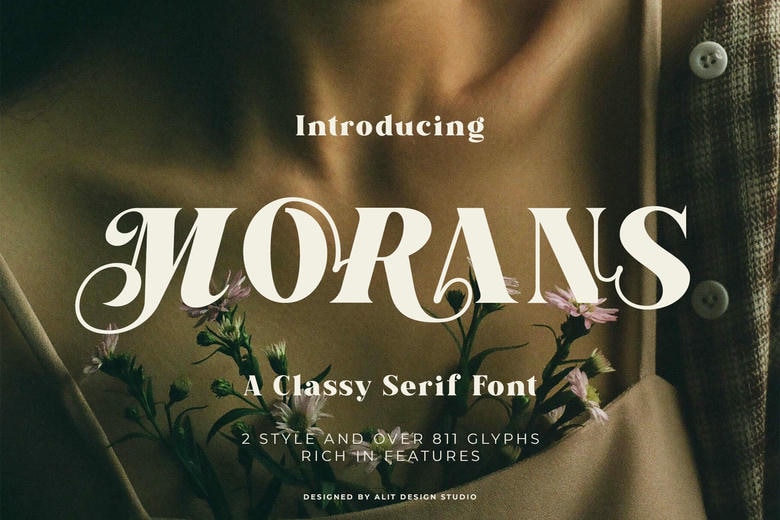
Morans Font
Morans is a serif typeface created by Alit Design Studio and its style reflects elegance, fineness and professionalism. That makes it ideal for designers who would wish to express dominance and sophistication in their projects.
Morans Serif Font